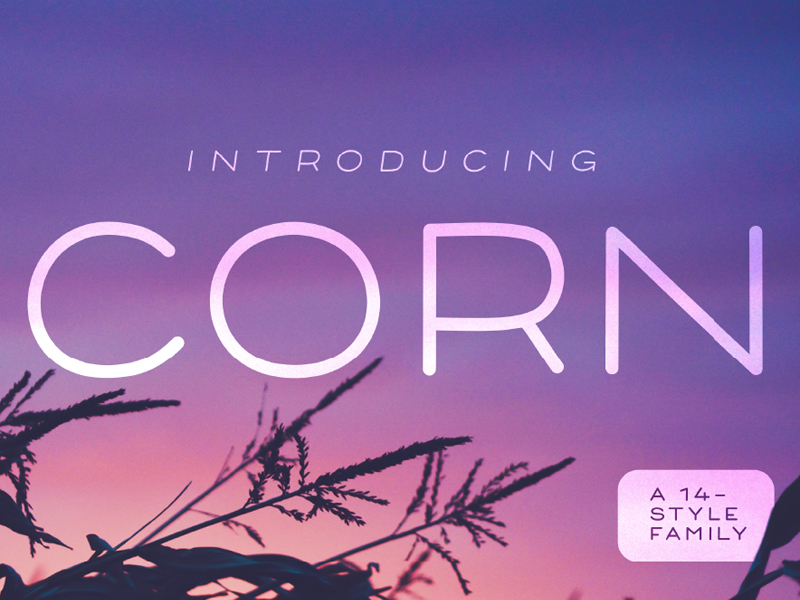
Corn – A Free Font Family
Corn is the new font for clean and modern design by Philip Trautmann. Its rounded corners give the font a smooth appearance. It also features numbers, symbols and language support. It is free for personal use.
Corn - A Free Font Family